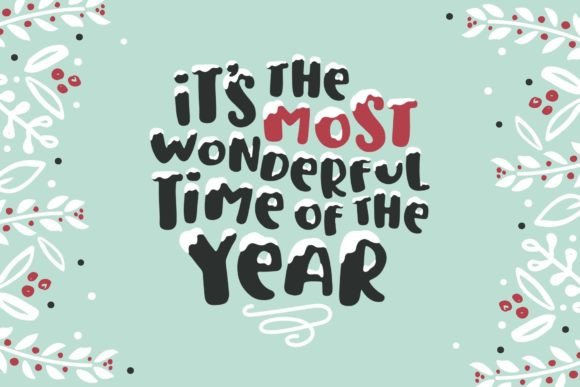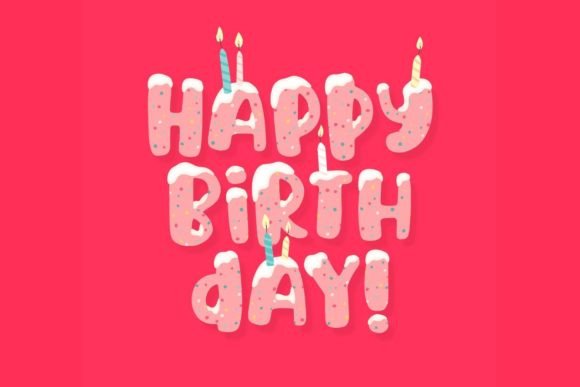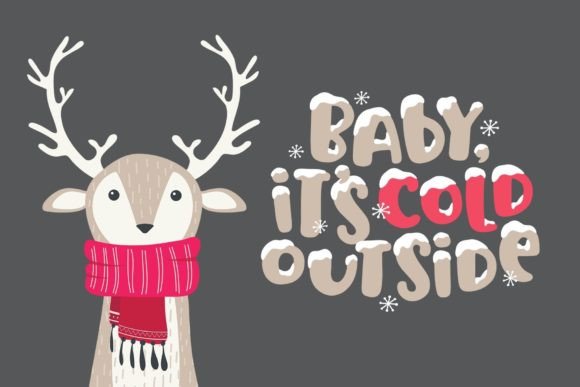
Blanket of Snow Font
Blanket of Snow is a wide, bold font packed with personality. It can be used alone, or with the overlay version placed on top for a snow-capped effect. Add it confidently to your projects, and you will love the results.